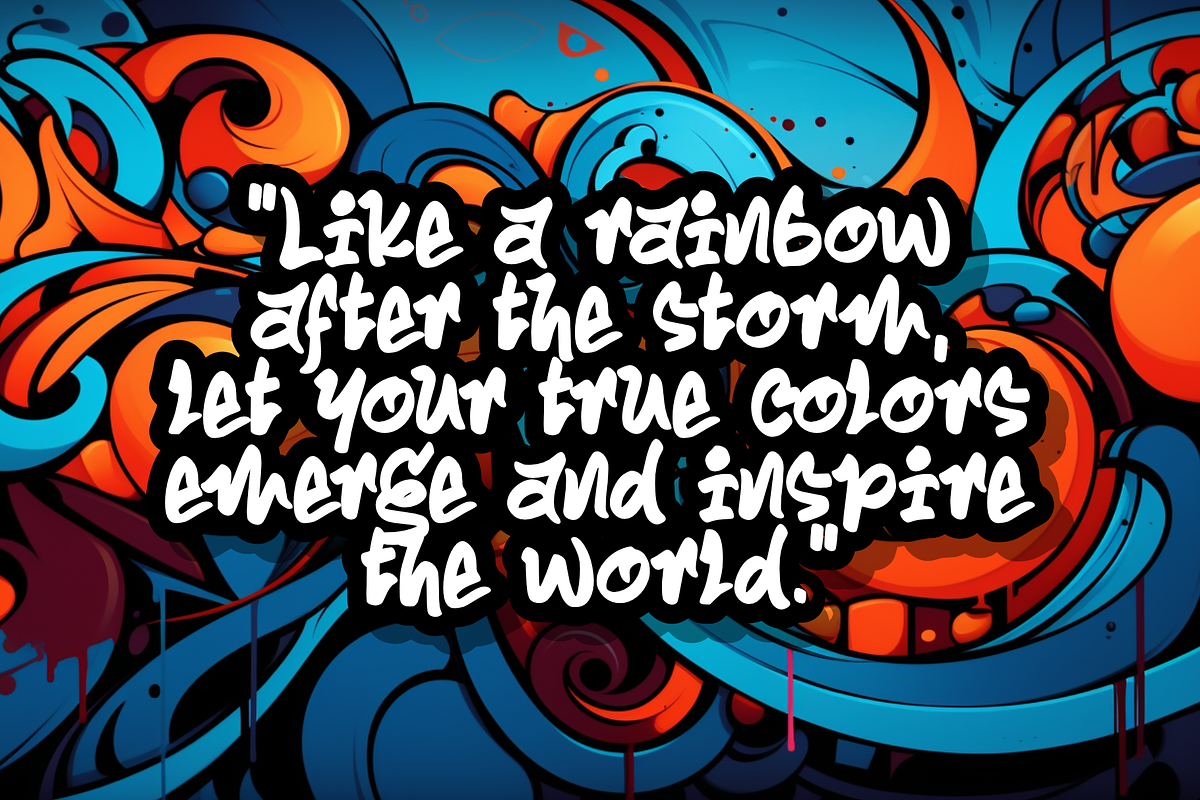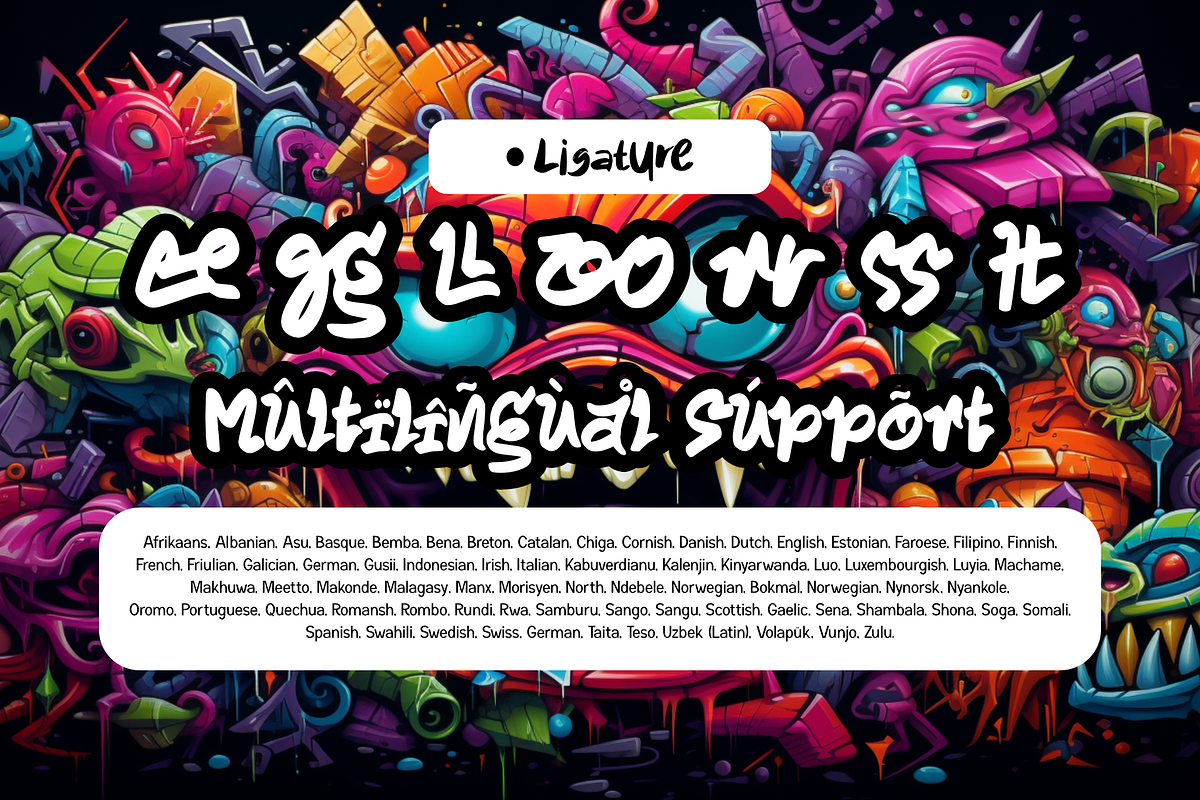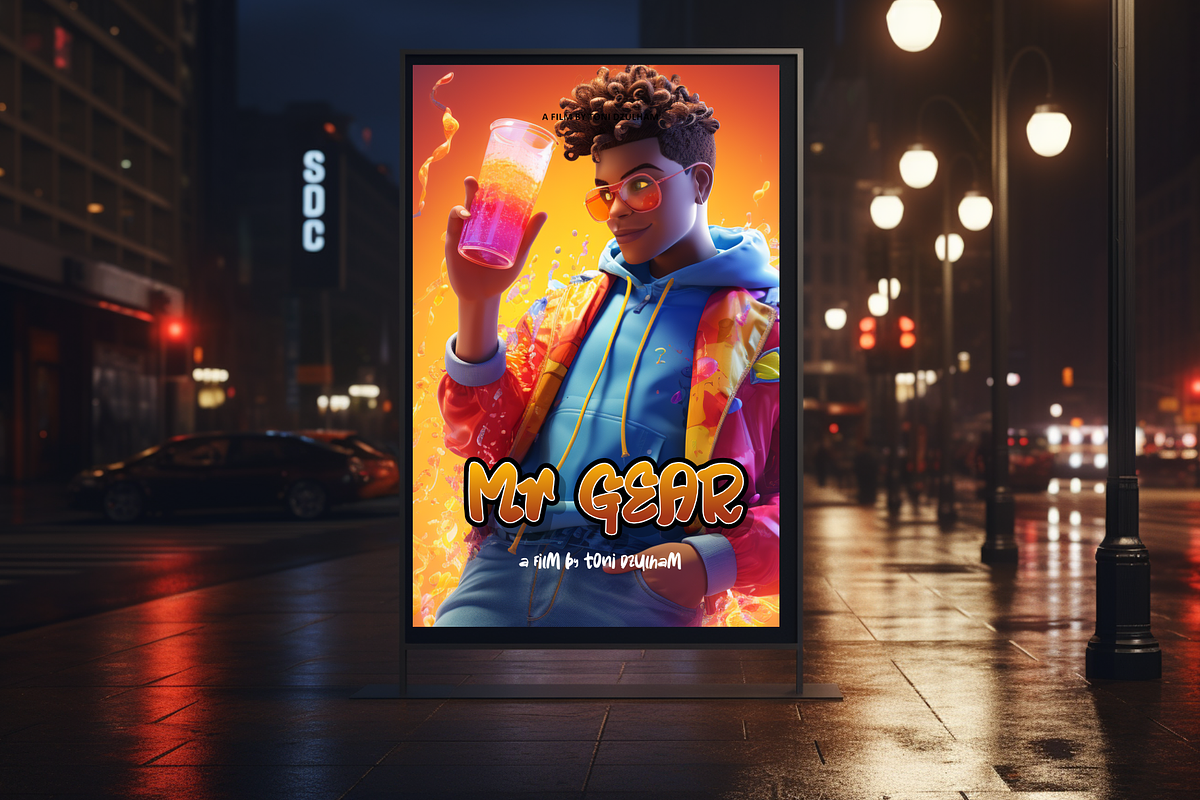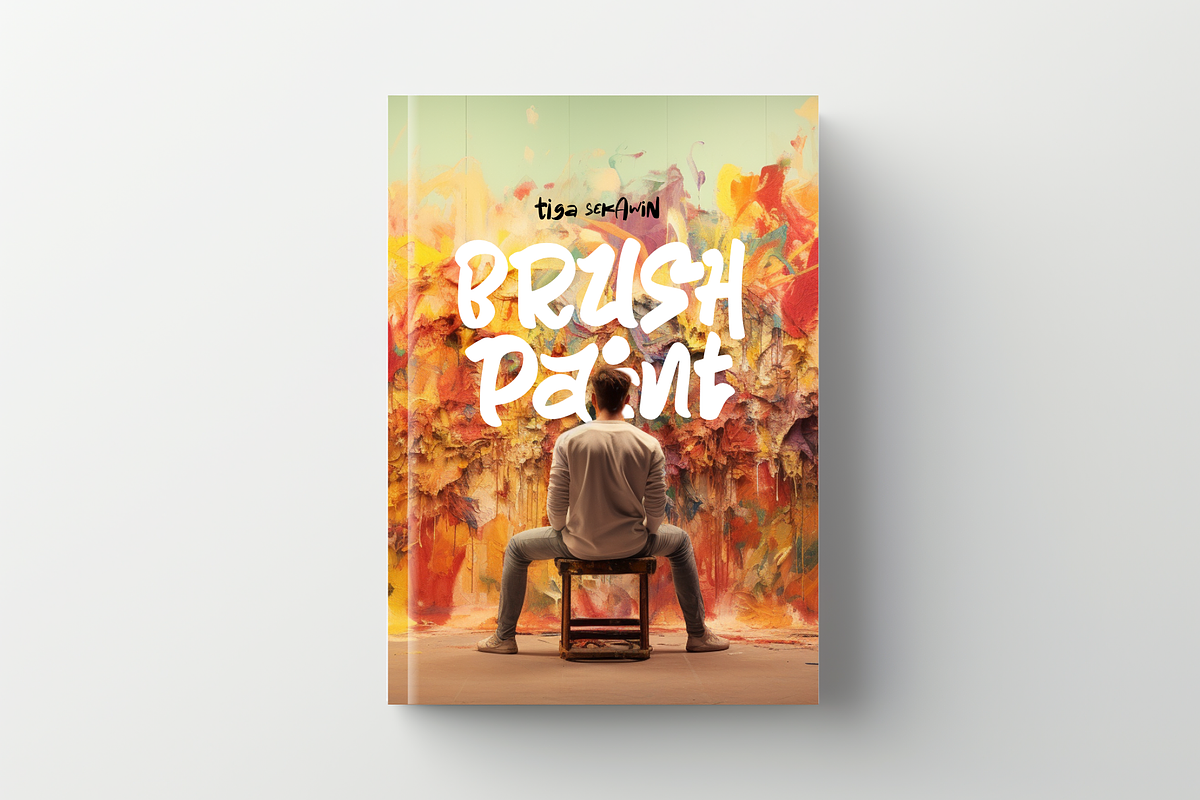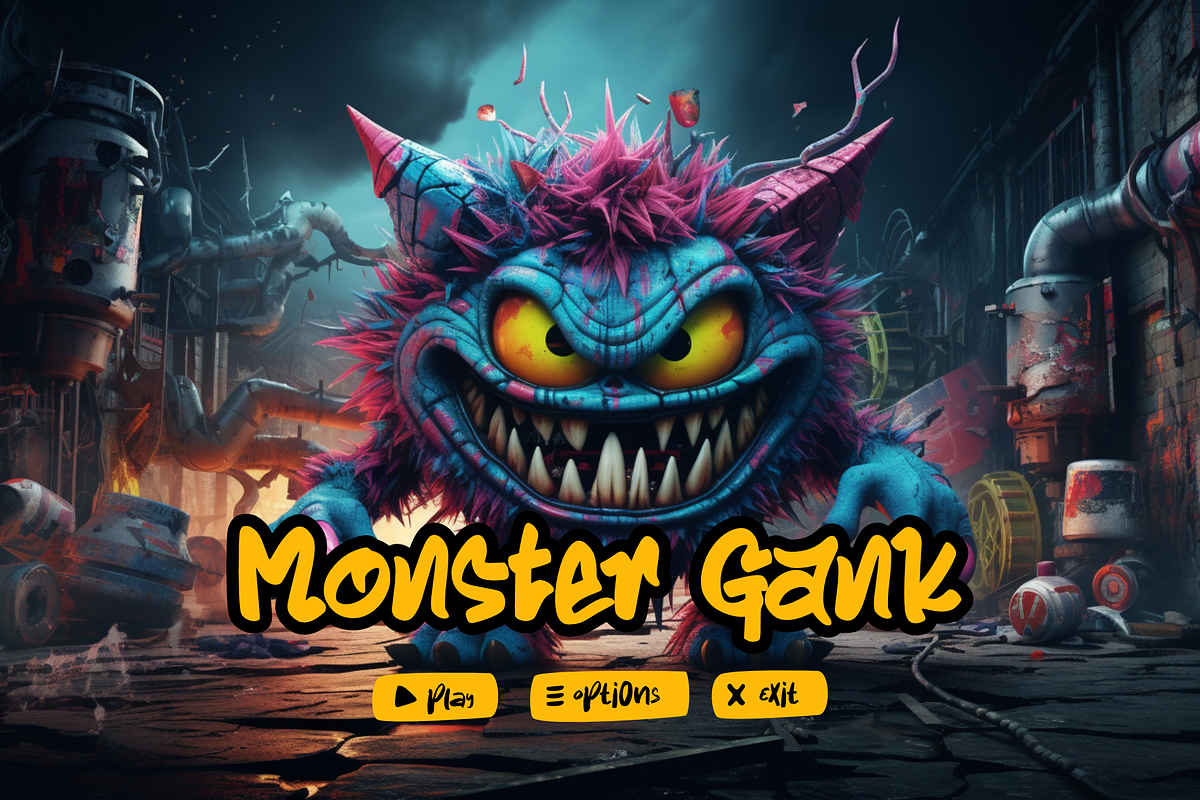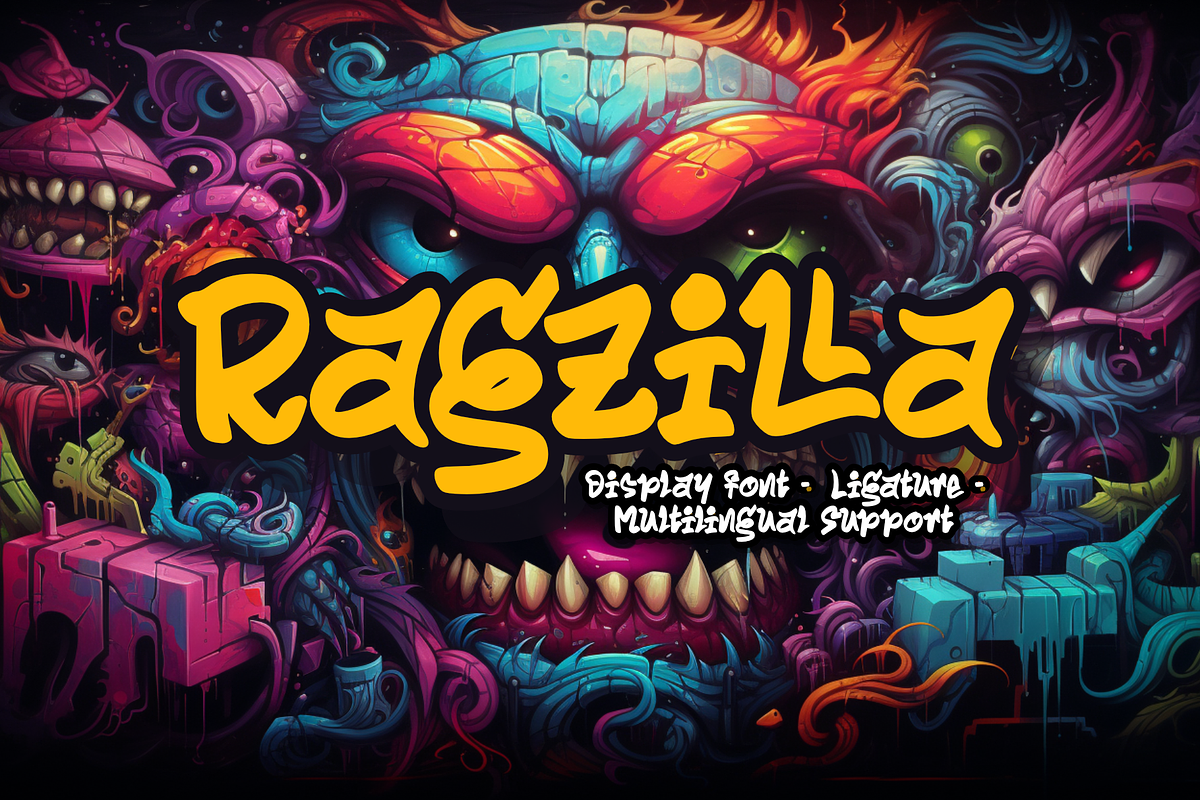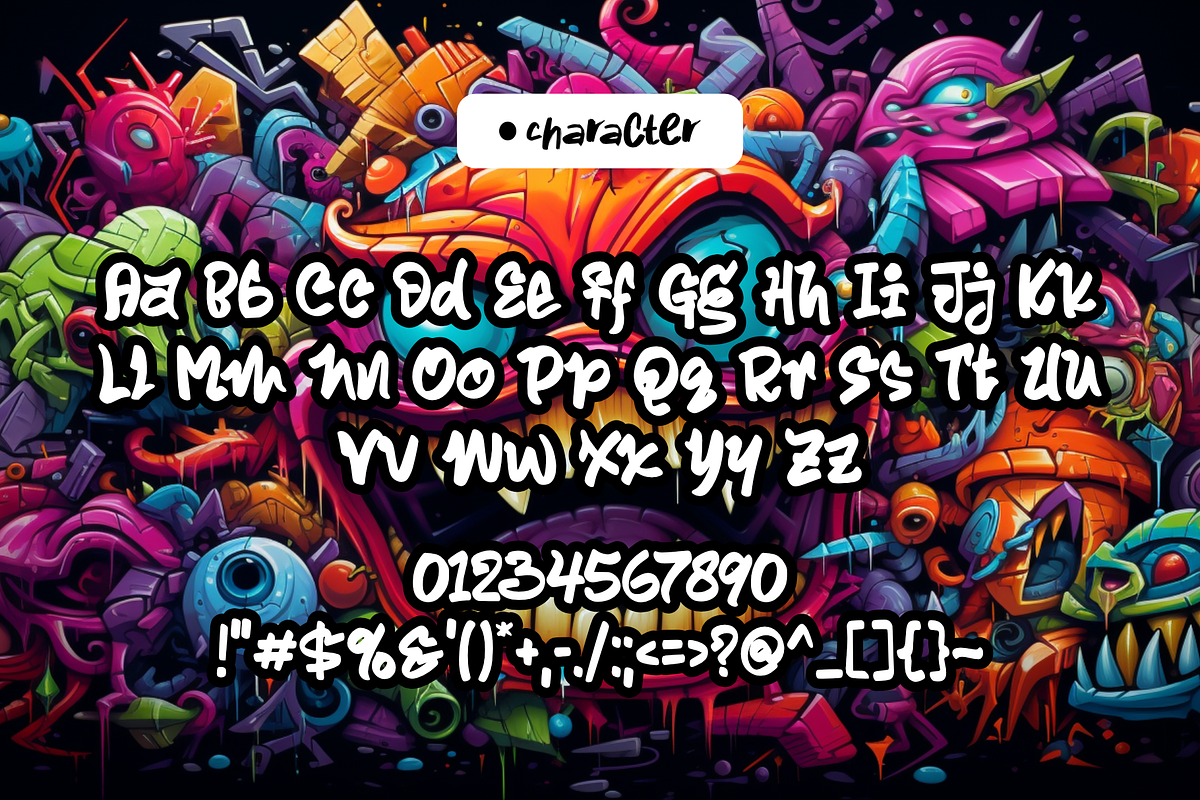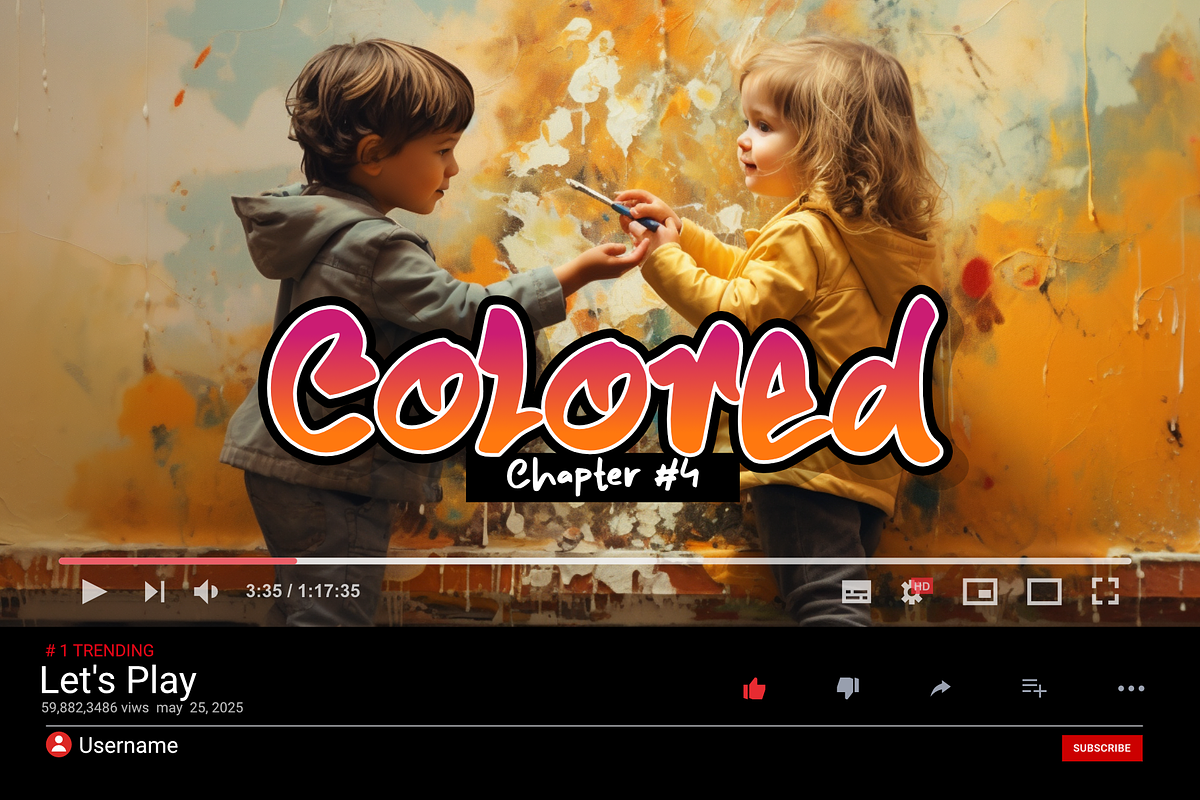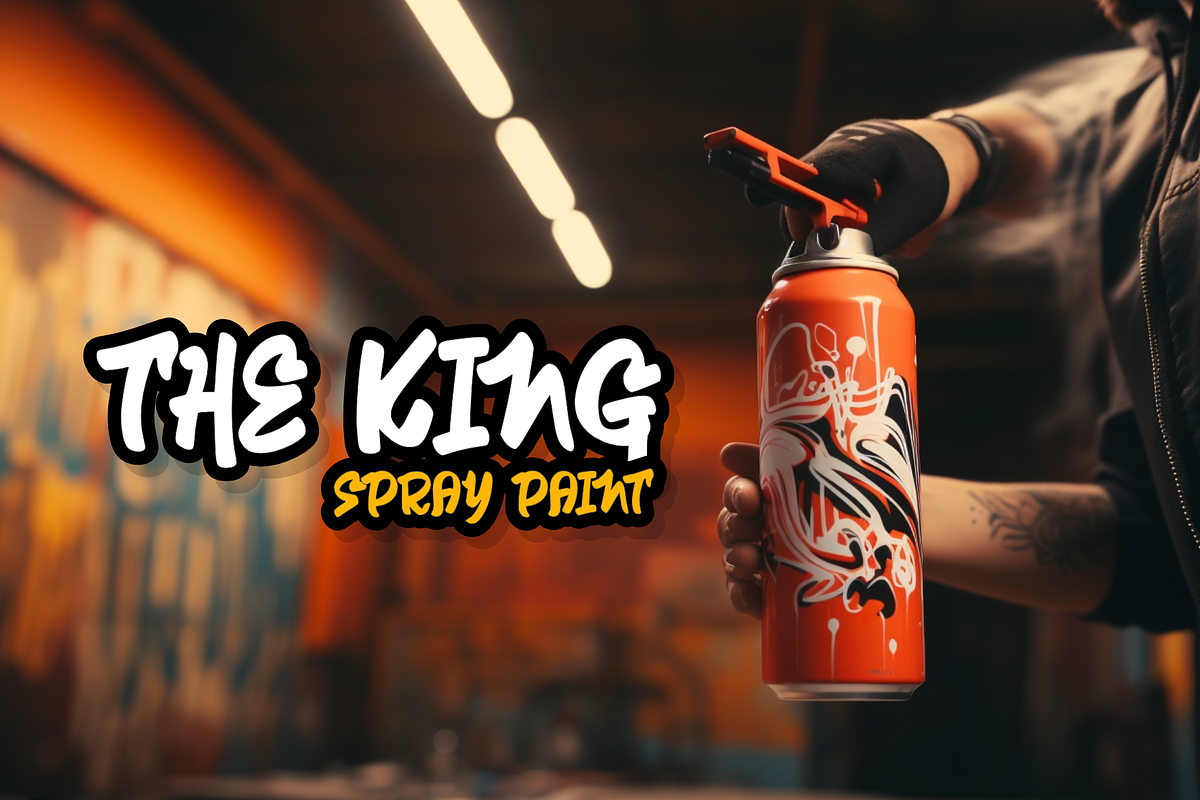
Ragzilla - Display
Ragzilla is a bold font with a thick brush style inspired by graffiti art. Combining the daring and energy of street graffiti, this font creates a striking and expressive look for eye-catching display designs.
With a strong brush and sharp lines, Ragzilla produces a bold effect that exudes strength and prominence. Each letter is filled with wild and free-spirited character, resembling brushstrokes used by graffiti artists working on city walls.
The uniqueness of Ragzilla lies in its array of letters that are full of diverse styles. From majestic uppercase letters to wavy lowercase letters, this font offers endless combinations to create standout titles, captivating taglines, or challenging display design elements.
Do you want to showcase creativity, boldness, and spirit in your designs? Ragzilla is the perfect font to embody the graffiti spirit and add a touch of roughness and courage to your design projects. With the presence of Ragzilla, you can create unforgettable looks and leave a strong impression on every eye that beholds it.
- Multilingual Accent